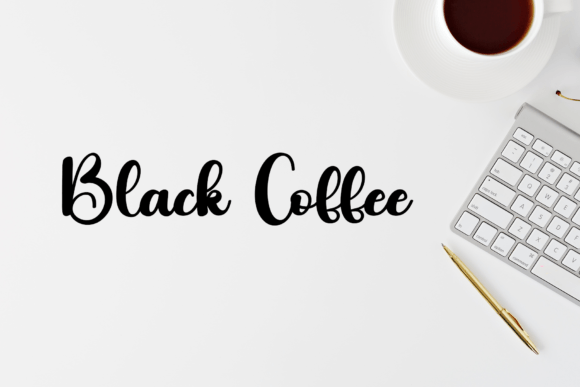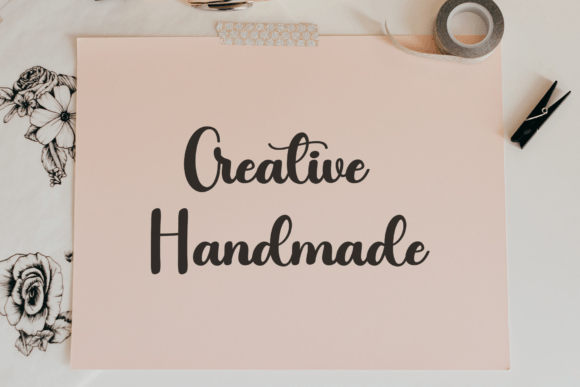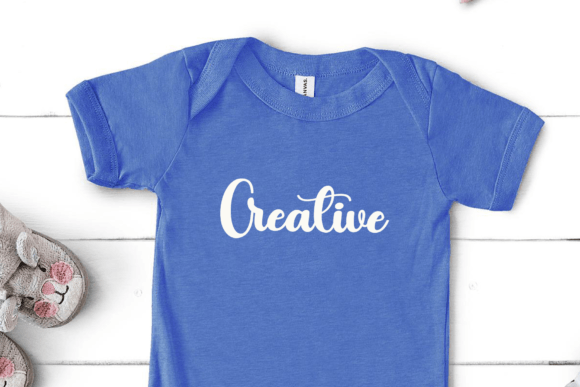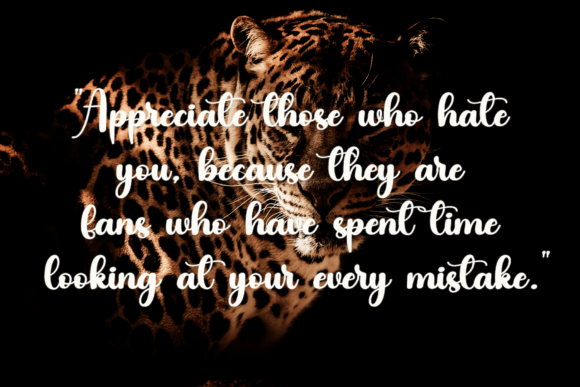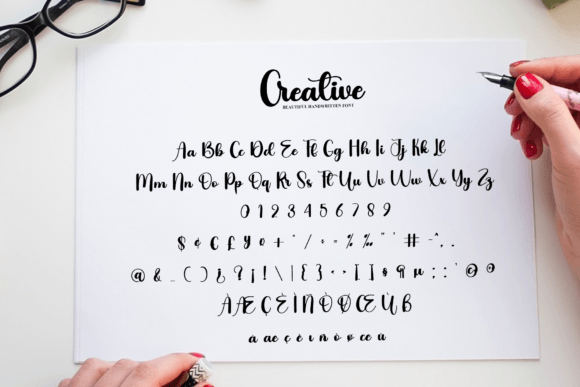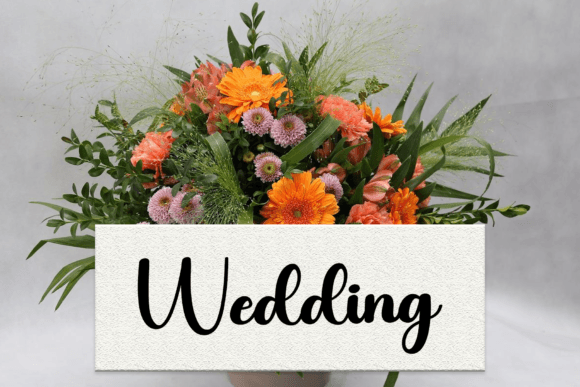
Where Words Meet Art: The Magic of Creative Font
Have you ever been stuck on a project, staring blankly at a blank page, searching for the perfect font to bring your creative vision to life? We’ve all been there. For designers, finding the right typeface can be the difference between a design that’s merely good and one that’s truly breathtaking. And that’s exactly where the Creative Font comes in – a beautiful, elegant, and feminine typeface designed to elevate your headlines and make them truly unforgettable.
Whether you’re crafting wedding stationery, designing packaging, or creating social media posts, the Creative Font is the perfect choice. Its versatility and sophistication make it a valuable asset for designers, allowing them to add a touch of sophistication and elegance to any project. With the Creative Font, the possibilities are endless, and the results are sure to leave a lasting impression.
Creative Font Key Features
- Unique Characteristics: The Creative Font boasts a unique blend of modern and vintage elements, featuring elegant lines, subtle textures, and a sophisticated color palette.
Designer Review: Creative Font
Overall, I was excited to dive into the world of Creative Font. As a designer, I’m always on the lookout for fresh and unique fonts that can bring a touch of personality to my projects. Here are my honest thoughts on this font:
- Unique Character Set: Creative Font has a distinct and quirky character set that’s perfect for making a statement. The font’s irregularities add a touch of whimsy and personality to any project.
- High-Quality Rasterization: The font’s rasterization is top-notch, making it perfect for digital use. The font’s edges are crisp and clear, even at small font sizes.
- Great for Emphasis: Creative Font is perfect for adding emphasis to headlines or titles. The font’s bold and playful nature makes it stand out from the crowd.
- Limited Legibility: While Creative Font is great for emphasis, it can be a bit challenging to read at smaller font sizes. This makes it less suitable for large blocks of text.
- Limited Font Sizes: The font’s unique character set can make it difficult to scale down to smaller font sizes. This limits its versatility in certain projects.
Overall, I would say that Creative Font is a great addition to any designer’s toolkit. While it has its limitations, its unique character set and high-quality rasterization make it perfect for adding a touch of personality to your projects.
For best results, use Creative Font in headings and titles to add visual interest. It’s also suitable for creative industries such as graphic design, advertising, and publishing. Be mindful of font size and legibility to ensure the text remains readable.